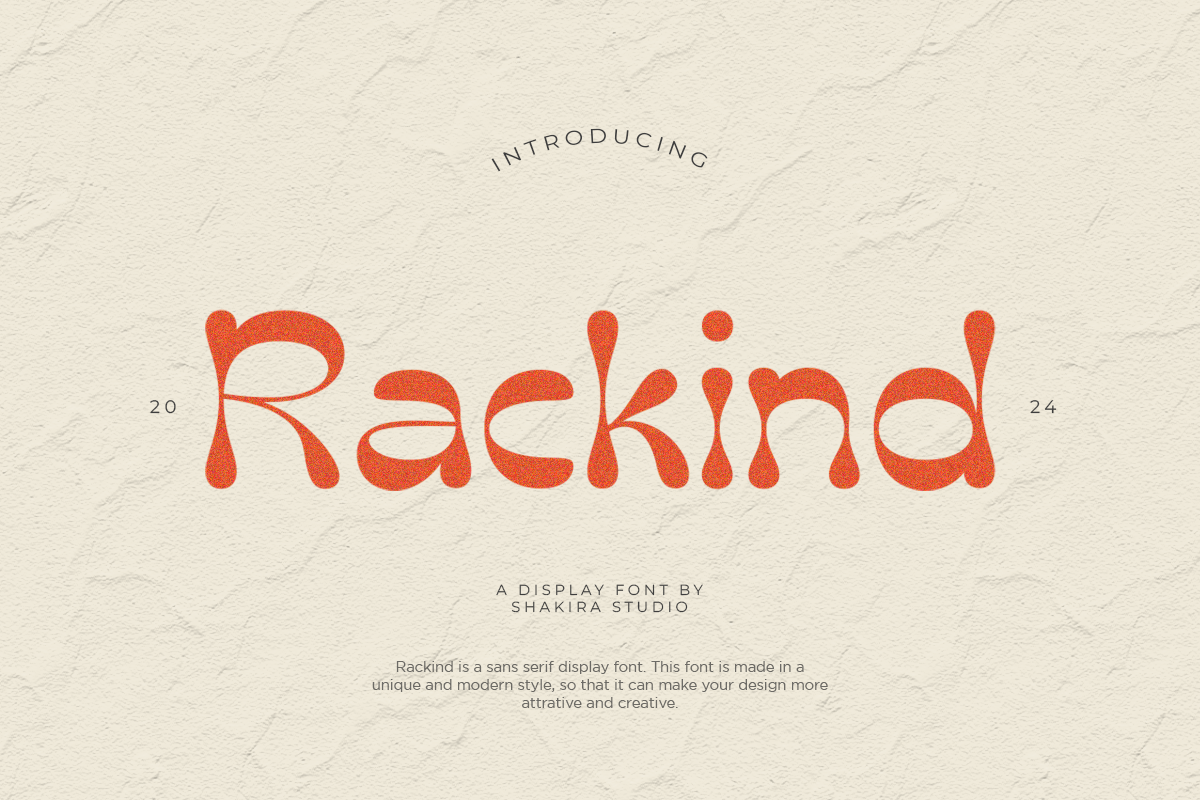
Rackind – Unique Display Font Free Download is a bold and unconventional typeface crafted to grab attention and make a statement. With its striking shapes, artistic letterforms, and creative flair, Rackind is perfect for logos, posters, album covers, fashion branding, and editorial layouts that demand visual impact.
Its distinctive character and experimental style make it ideal for designers who want to push boundaries and create standout visuals. Whether you’re going for edgy and modern or stylish and expressive, Rackind delivers a fresh typographic voice.